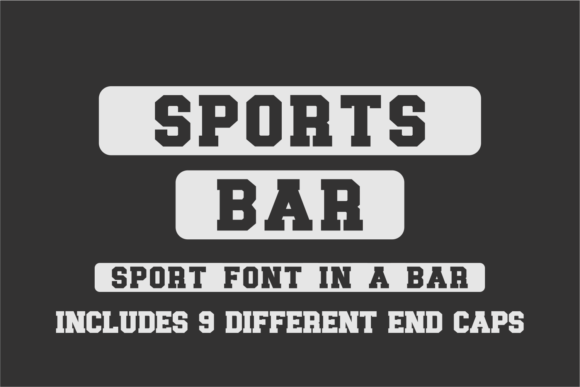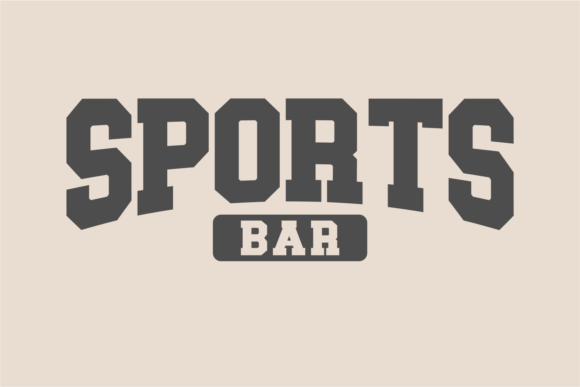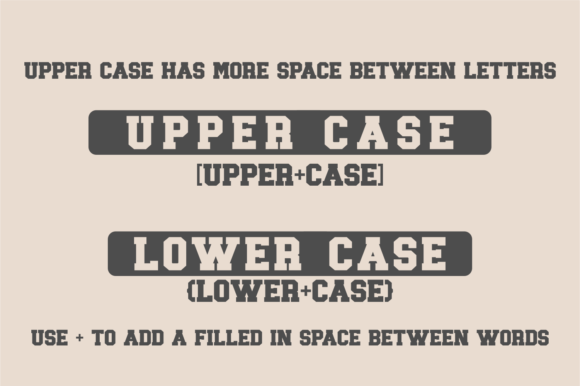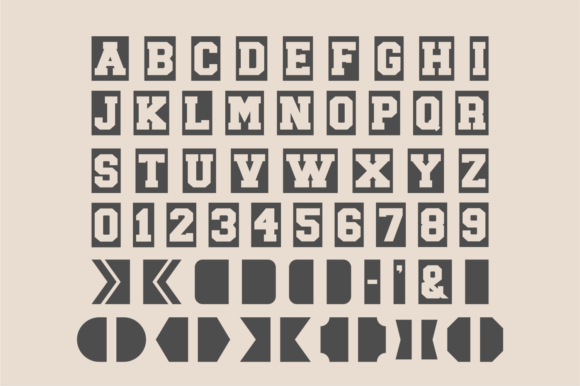
Sports Bar Font
About the Sports Bar Font
We are excited to introduce Sports Bar Font, a must-have typeface for any serious designer. Sports Bar is a dynamic and attractive display font. This font features bold letterforms and a sporty vibe that is perfect for athletic-themed designs. Use it for sports posters, team logos, and any project that requires an energetic and athletic feel.